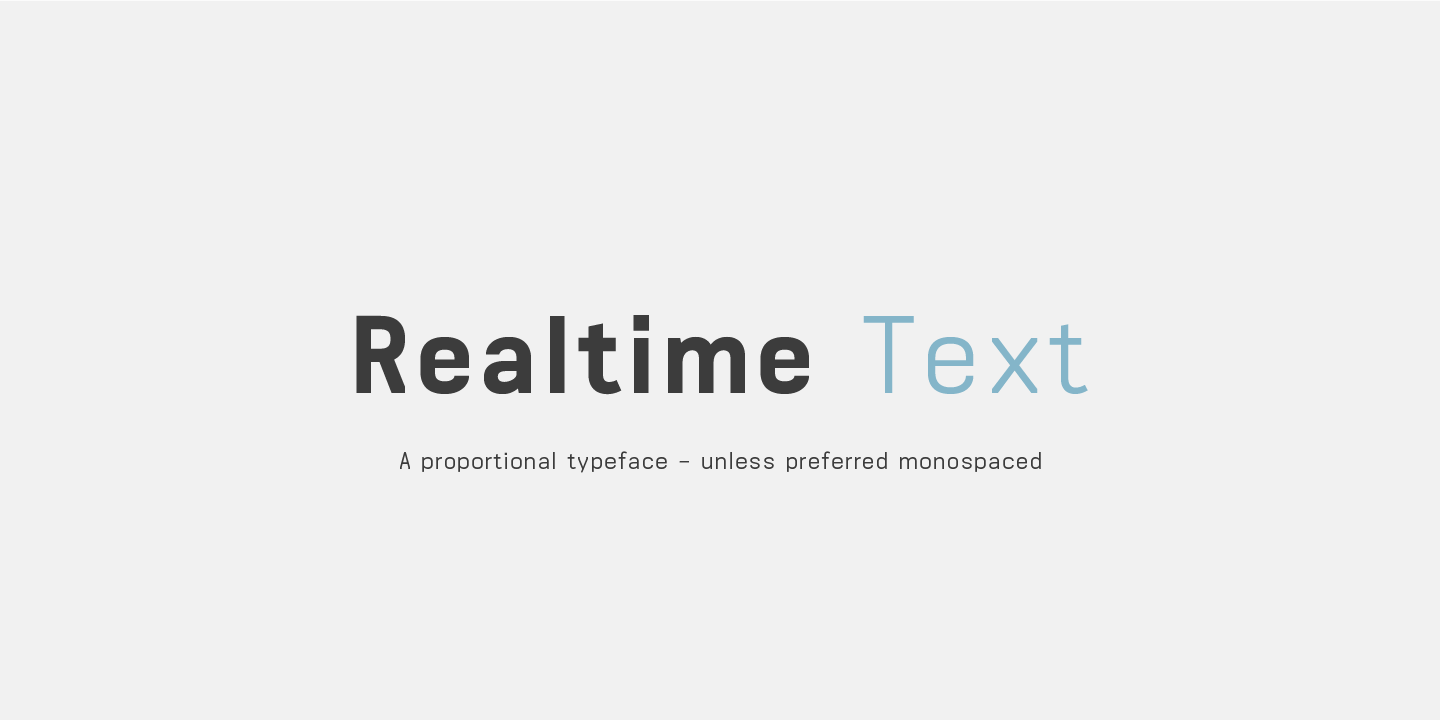
The Realtime Text Font is exceptionally suited for numerous digital and communication applications including live streaming interfaces, real-time chat platforms, news ticker displays, instant messaging applications, digital dashboard designs, social media overlays, broadcasting graphics, live event captioning, time-sensitive notifications, and dynamic content presentations. Its distinctive character makes it particularly effective for media companies, streaming platforms, tech startups, and digital communication brands seeking to convey immediacy, technological precision, and real-time connectivity in their visual communications and interface designs.
What makes the Realtime Text Font extraordinarily exciting is its perfect optimization for instant communication and live digital environments combined with contemporary typographic innovation. This cutting-edge typeface captures the essence of real-time digital interaction while incorporating modern design elements that ensure optimal performance across today's fast-paced media landscape. The font's captivating character emerges from its clear, efficient letterforms, optimized proportions, and carefully engineered details that create a sense of technological immediacy and communication clarity, making it perfect for brands seeking to establish authority in live digital communication and appeal to tech-savvy, always-connected audiences.
The Realtime Text Font family offers a comprehensive collection of weights and styles designed to accommodate various digital communication requirements. The collection typically includes thin, light, regular, medium, bold, and black weights, with many versions offering streamlined italic variants that enhance the font's dynamic appeal and real-time character. Some editions may include condensed versions, digital-optimized alternates, and screen-friendly elements that provide additional design options for creating unique typographic treatments and live communication applications.
Digital designers and real-time communication specialists consistently select the Realtime Text Font Free Download for its exceptional clarity and technological performance. The font features meticulously optimized spacing and kerning specifically engineered for screen readability and rapid text processing, ensuring instant communication across various digital platforms and real-time applications. Its robust construction maintains clarity and impact across different screen sizes and resolutions, while the comprehensive character set includes uppercase and lowercase letters, numerals, punctuation marks, and special symbols, along with extensive Unicode support for international real-time communications and global streaming platforms.
The Realtime Text Font represents the evolution of digital communication typography, combining technological precision with contemporary functionality. Its immediate aesthetic demonstrates real-time capability while maintaining the professionalism required for serious digital applications. The font's remarkable adaptability allows it to work effectively in both live streaming contexts and static digital presentations, ensuring consistent communication clarity across streaming platforms, digital interfaces, live applications, and real-time messaging systems.
Connect instantly and communicate effectively with the technological precision and real-time clarity of the Realtime Text Font, the ultimate choice for digital communication typography excellence.